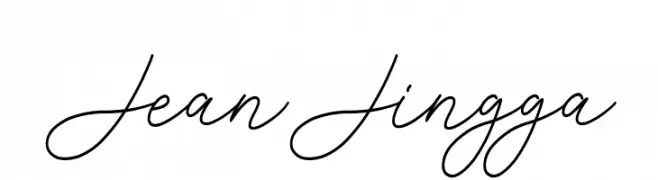
A whimsical decorative font featuring playful silhouettes of children in various activities.
A whimsical and artistic collection of decorative symbols with diverse motifs.
Abstract, circular icons with line-drawn faces and animals.
A decorative font featuring tribal bird motifs with intricate and bold designs.
A collection of artistic illustrations with bold, graphic style and high contrast.
A whimsical and decorative design featuring playful bird-like characters.
A cursive, oblique font with a flowing, elegant style.
Outdoor adventure pictogram font with climbing and camping scenes.
A playful, illustrative font featuring dancing people as each character.
Illustrative font featuring workers and job scenes as characters.
A whimsical and artistic font featuring expressive, face-like characters.
Ornamental geometric dingbat font with intricate, symmetrical designs.
A playful dingbat font with diverse, bold symbols and abstract icons.
A playful, hand-drawn dingbat set featuring childlike sketches of faces, animals, and objects.
A dingbat font of hand-drawn children's drawings and playful scenes.
A decorative dingbat font featuring assorted icons and pictograms.